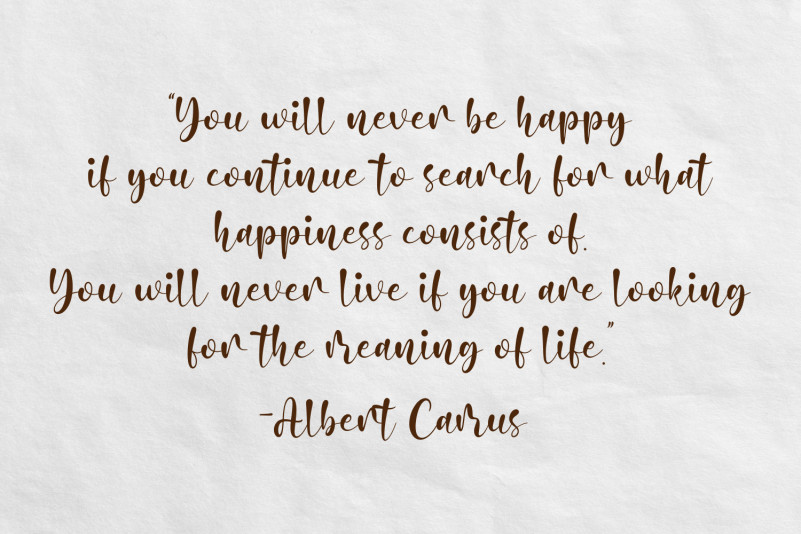
Madine Style Font
Madine Style Script Font is a fancy and elegant handcrafted font. Make your projects dance with this lovely and cute font wherever you use it. Use it for your headings, logos, ads, printed quotes, packaging, and even your website or social media branding.